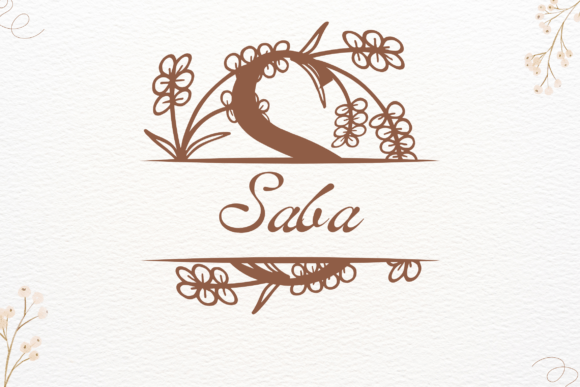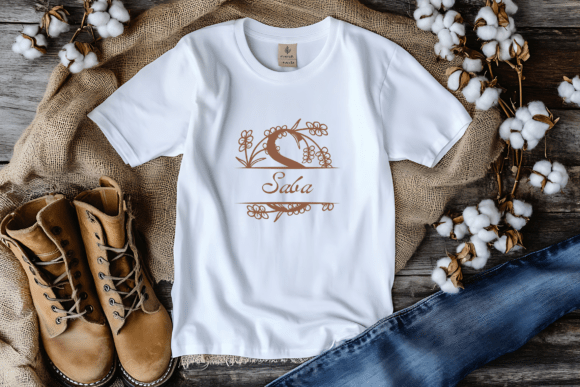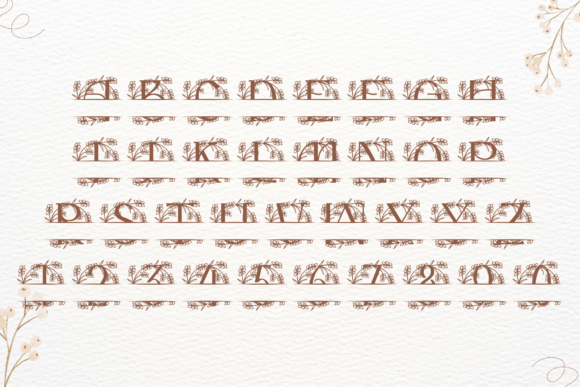
Elarose Split Monogram Font: Elevate Your Designs with Elegance and Versatility
In the world of typography, a well-crafted font can elevate your designs from ordinary to extraordinary. For those seeking an elegant and versatile serif font, look no further than the Elarose Split Monogram Font. This beautiful font is designed to bring a touch of sophistication and modernity to your projects, making it perfect for a wide range of applications, from wedding invitations to boutique branding, gifts, Cricut crafts, and premium packaging.
What Makes Elarose Split Monogram Font Stand Out?
Elarose Split Monogram is a thoughtfully designed serif font that features a unique horizontal split in each uppercase letter. This innovative design element allows you to easily personalize your projects by inserting names, dates, or short phrases in the center of the monogram. The result is a classic yet modern aesthetic that exudes elegance and refinement.
Building on the success of the original Elarose Monogram, the split version offers the same graceful shapes but with the added practicality of space for text. The serif forms are crisp and balanced, with gentle flourishes that ensure the font reads beautifully at both small and large sizes. This versatility makes Elarose Split Monogram an excellent choice for various design applications.
Applications of Elarose Split Monogram Font
The Elarose Split Monogram Font is incredibly versatile and can be used in a multitude of design projects. Some of the most popular applications include:
- Wedding Invitations and Stationery: Create stunning wedding invitations, save-the-date cards, and other stationery with a personal touch.
- Boutique Branding: Elevate your boutique’s brand identity with elegant packaging, labels, and marketing materials.
- Gifts and Keepsakes: Add a personal touch to gifts, such as monogrammed towels, mugs, and other keepsakes.
- Cricut Crafts: Use Elarose Split Monogram with Cricut Design Space to create custom vinyl decals, iron-on designs, and paper crafts.
- Premium Packaging: Stand out in the market with sophisticated packaging that features your brand’s elegant monogram.
Features and Benefits of Elarose Split Monogram Font
Elarose Split Monogram Font comes with a range of features that make it an excellent addition to any designer’s toolkit:
- Full A–Z Uppercase Set: Includes all uppercase letters for effortless monogramming.
- Numerals, Punctuation, and Multilingual Support: Offers a comprehensive set of characters for versatile design applications.
Tips for Getting the Most Out of Elarose Split Monogram Font
To maximize the potential of Elarose Split Monogram Font, consider the following tips:
- Experiment with Colors and Backgrounds: Play with different color schemes and backgrounds to find the perfect combination for your design.
- Pair with Complementary Fonts: Combine Elarose Split Monogram with other fonts to create visually appealing and harmonious designs.
- Utilize the Horizontal Split: Take advantage of the font’s unique split feature to add personalized touches to your designs.
In conclusion, the Elarose Split Monogram Font is a versatile and elegant serif font that can elevate your designs to new heights. With its unique horizontal split, crisp serif forms, and comprehensive character set, it’s perfect for a wide range of applications. Whether you’re a designer, crafter, or DIY enthusiast, Elarose Split Monogram Font is an excellent addition to your toolkit.